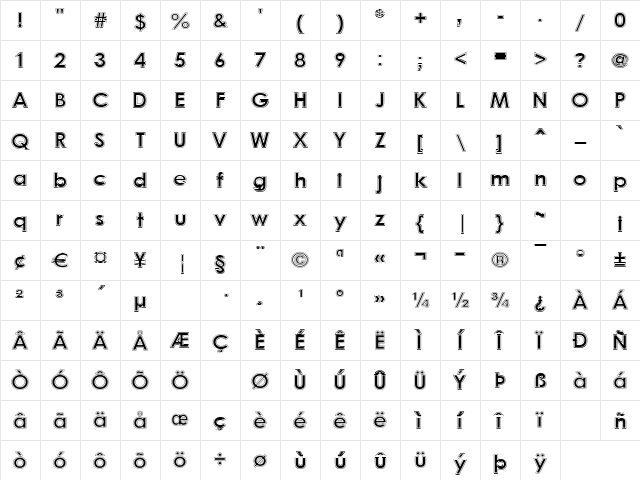
College Halo Regular Free Font
College Halo Regular
Design Context for College Halo
College Halo brings high-energy athletic personality to the page - its confident, muscular forms are built for impact.
Pro Tip: Use College Halo in all-caps headlines where its athletic energy can fully express itself. Pair with a solid, simple sans for supporting text.